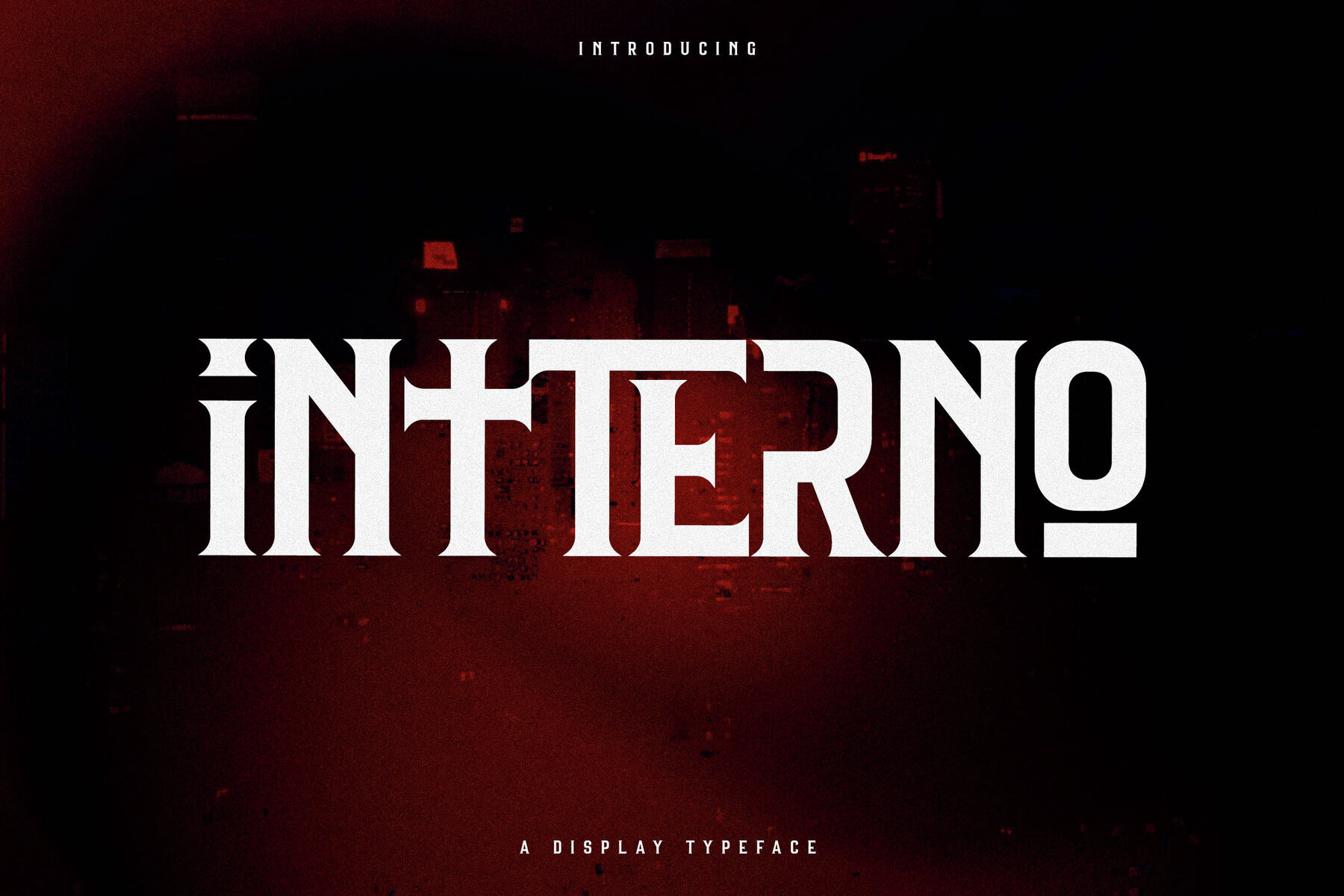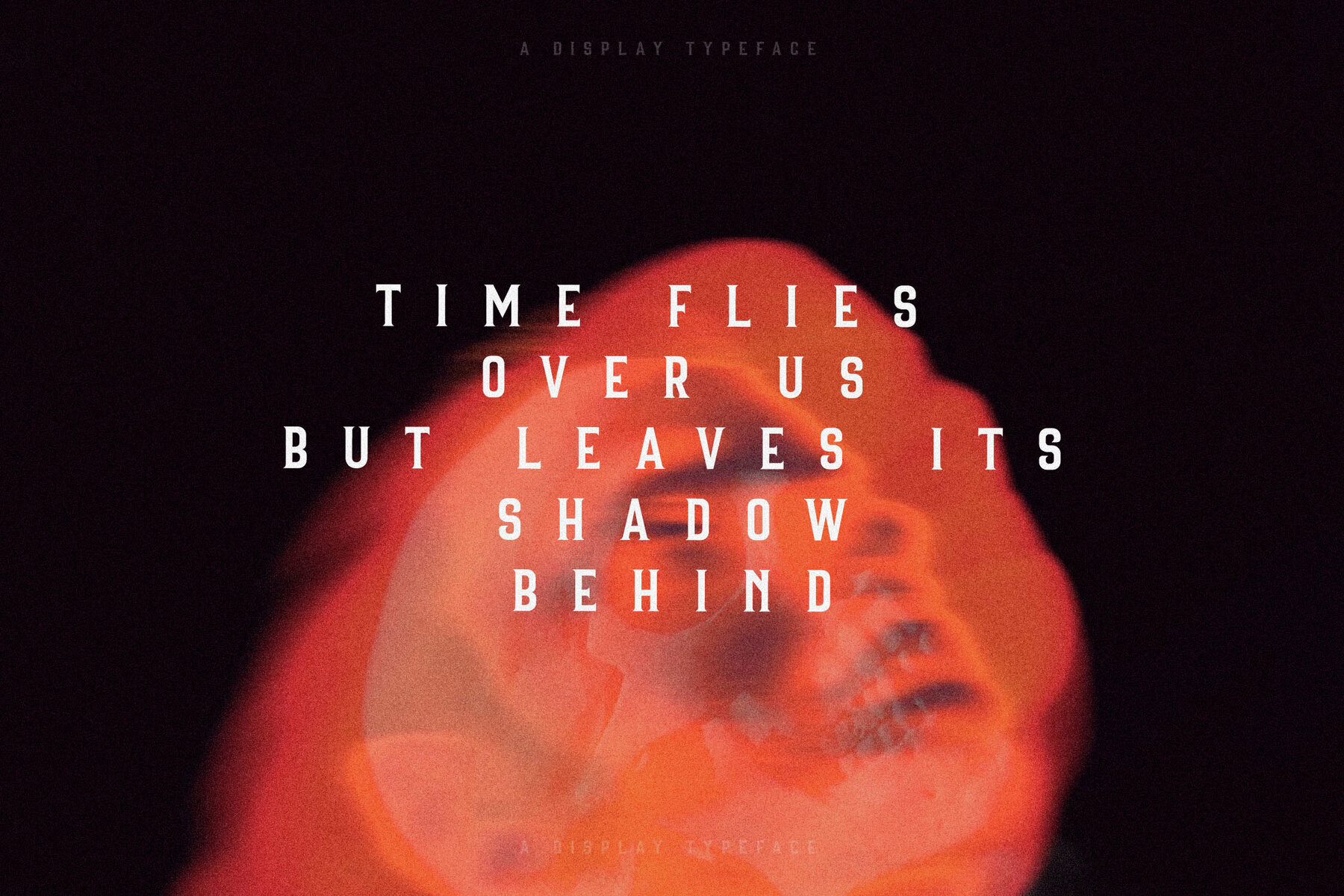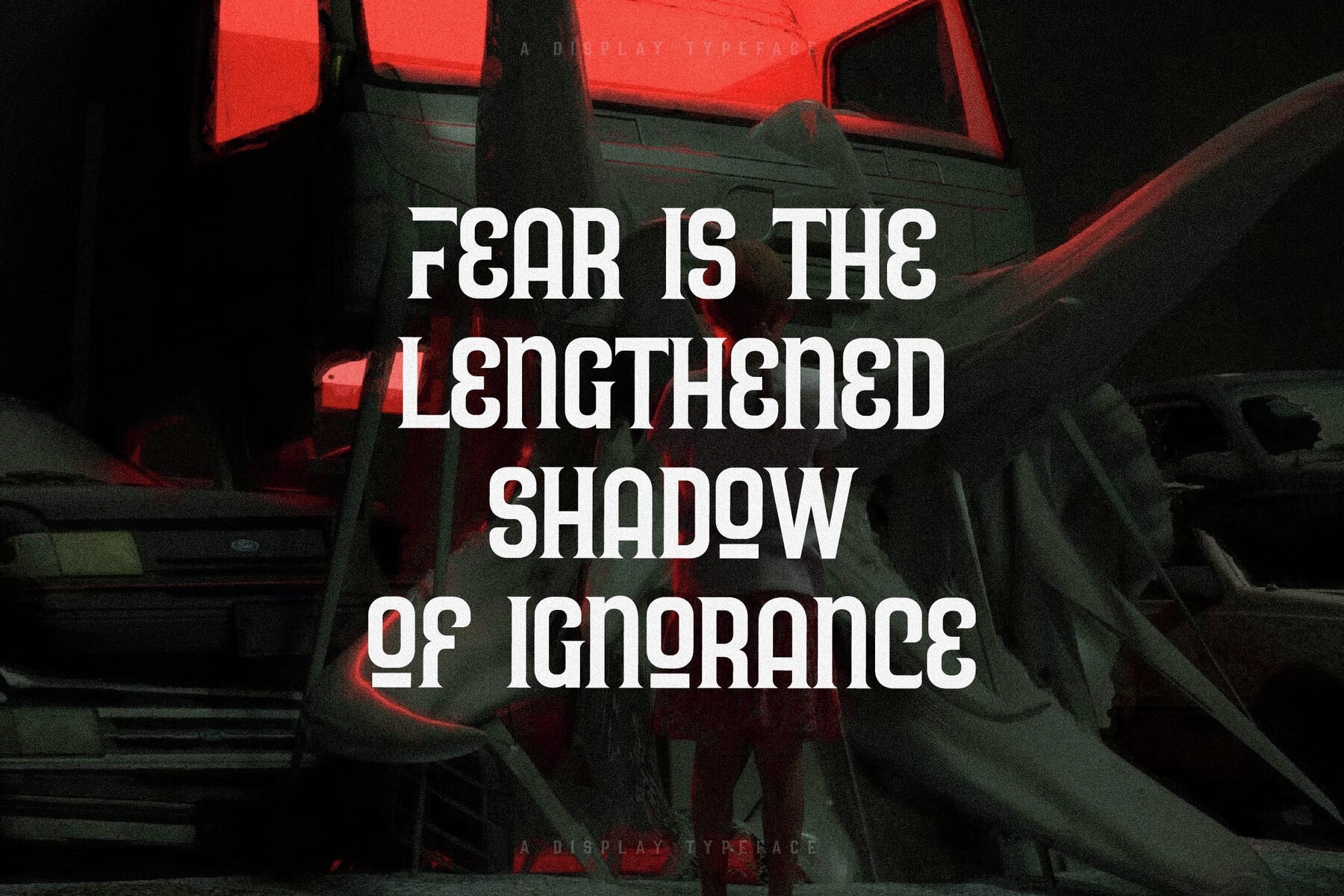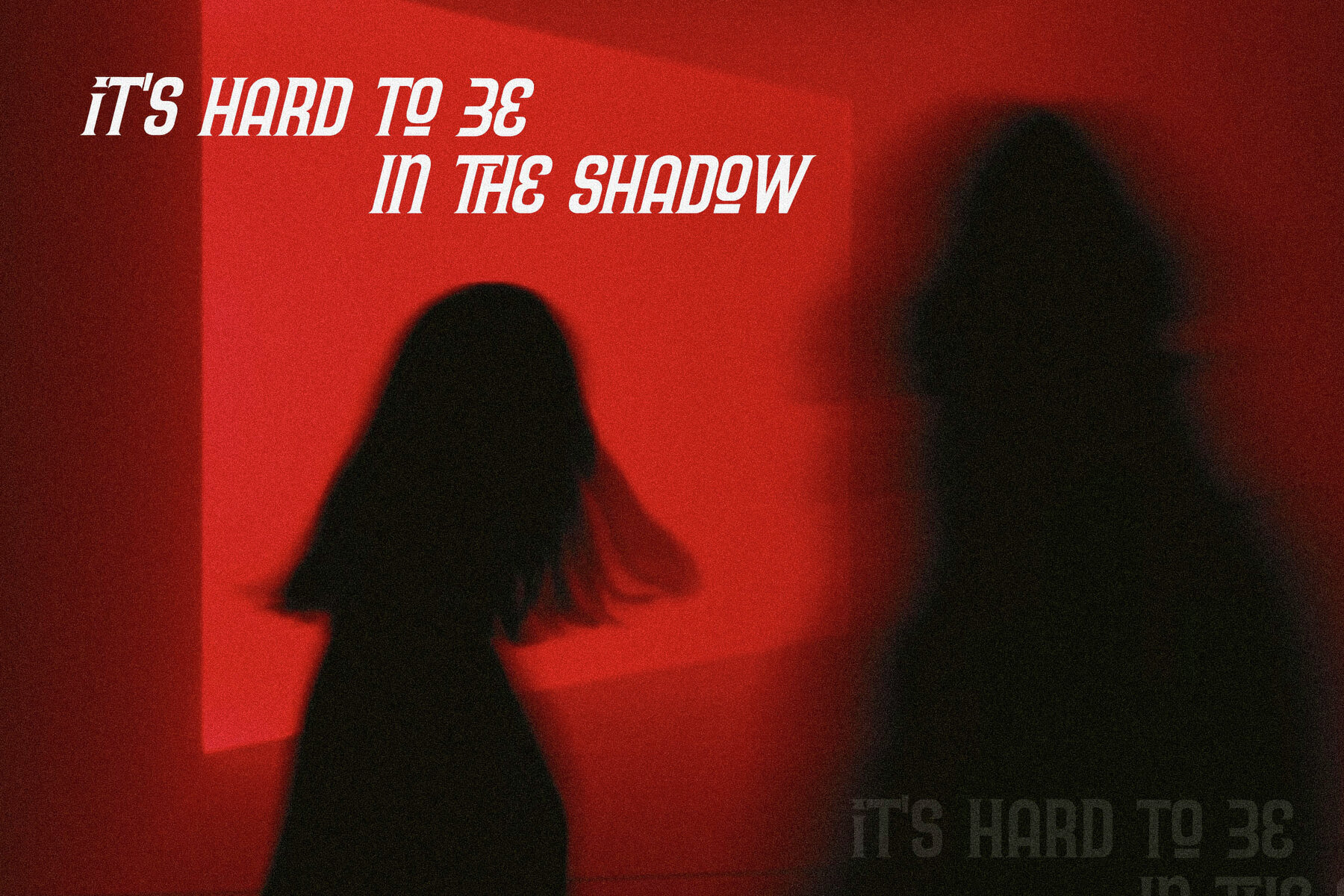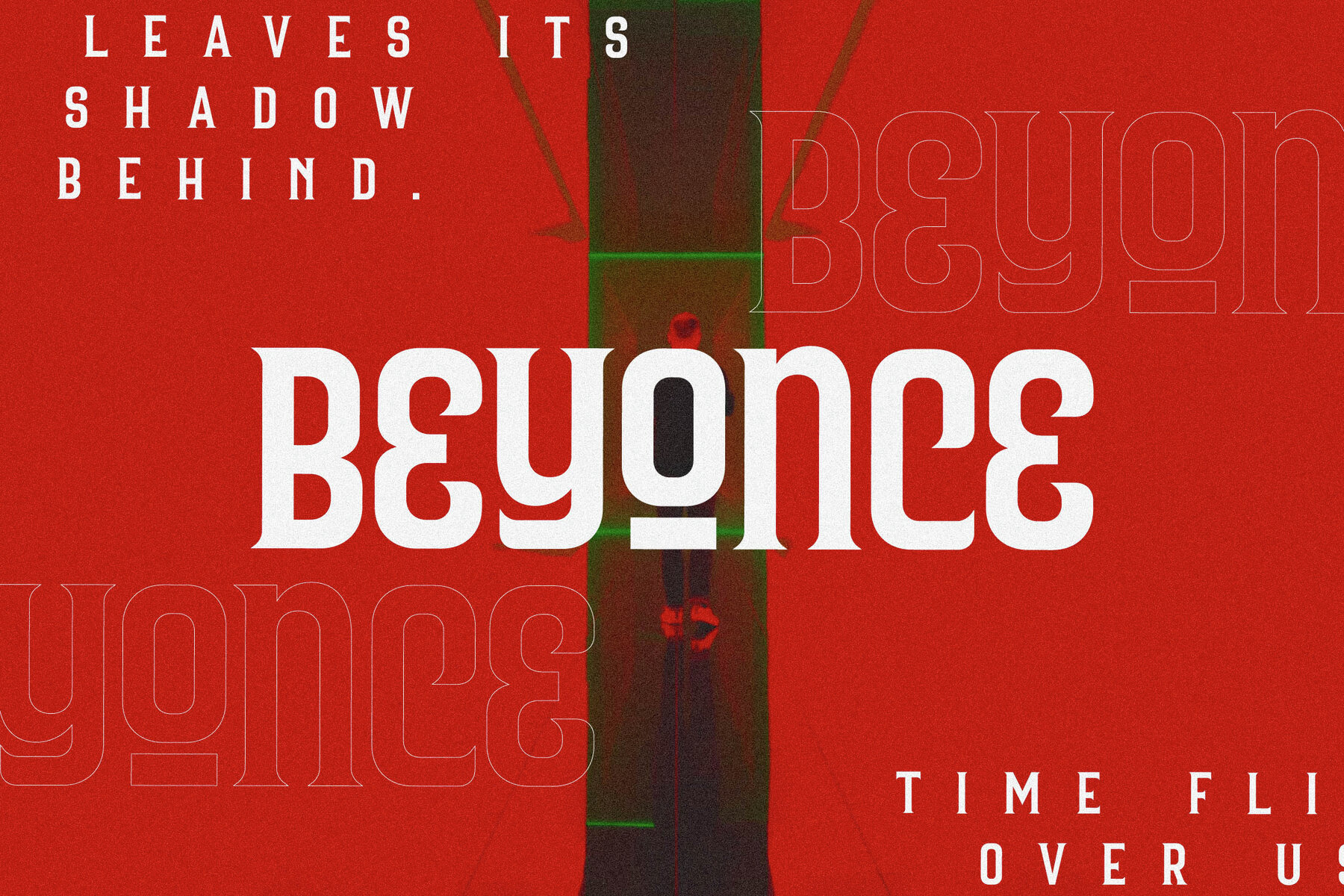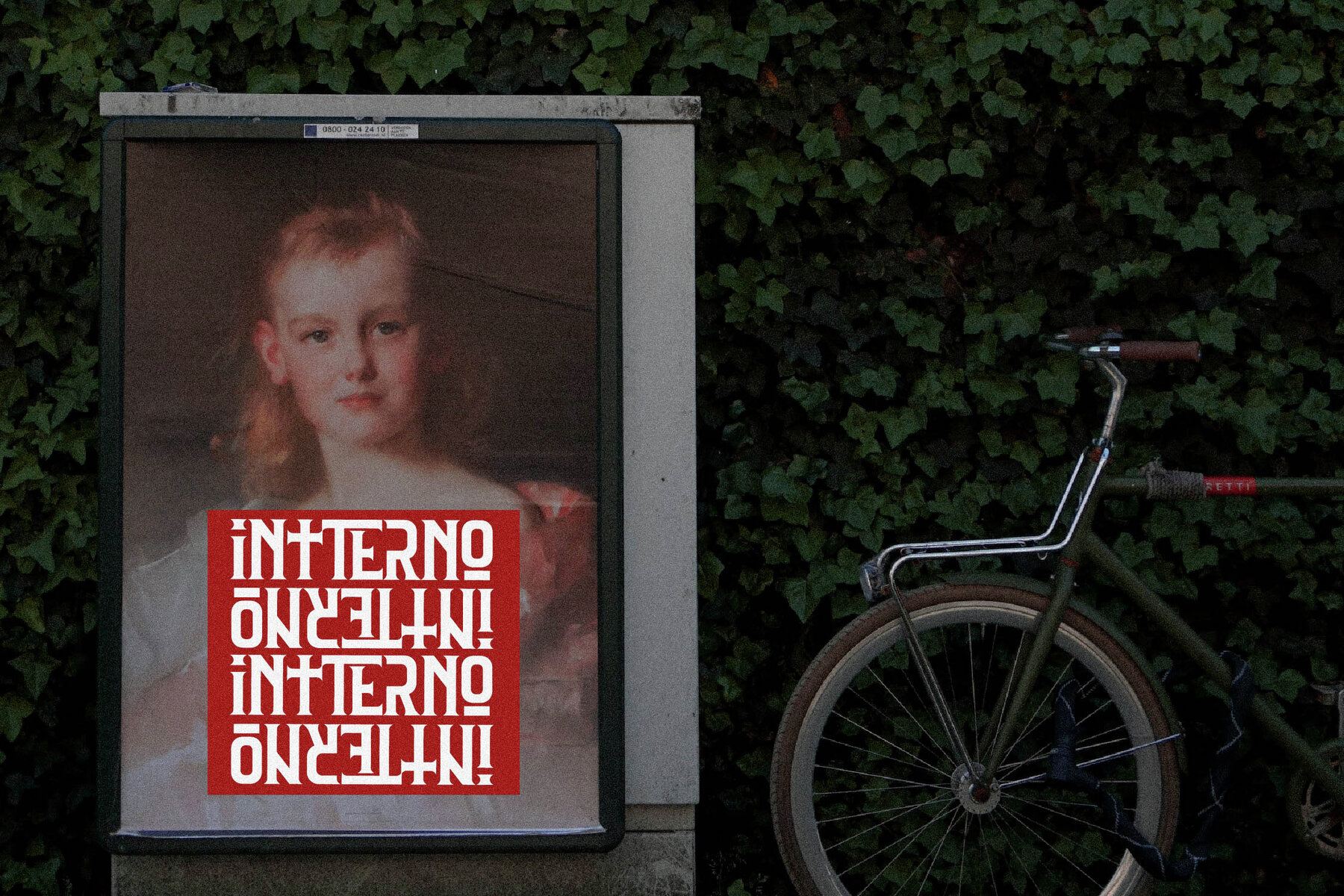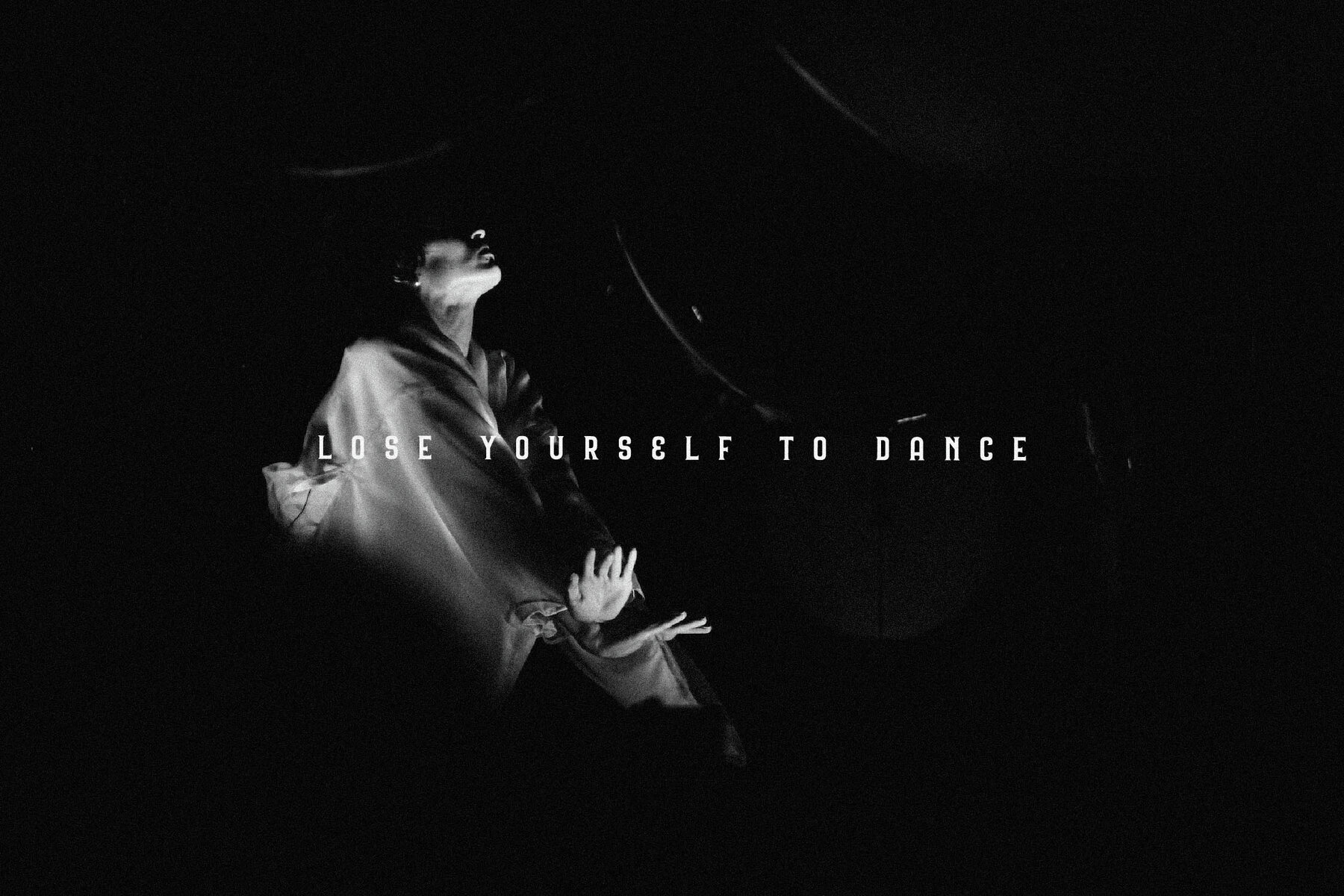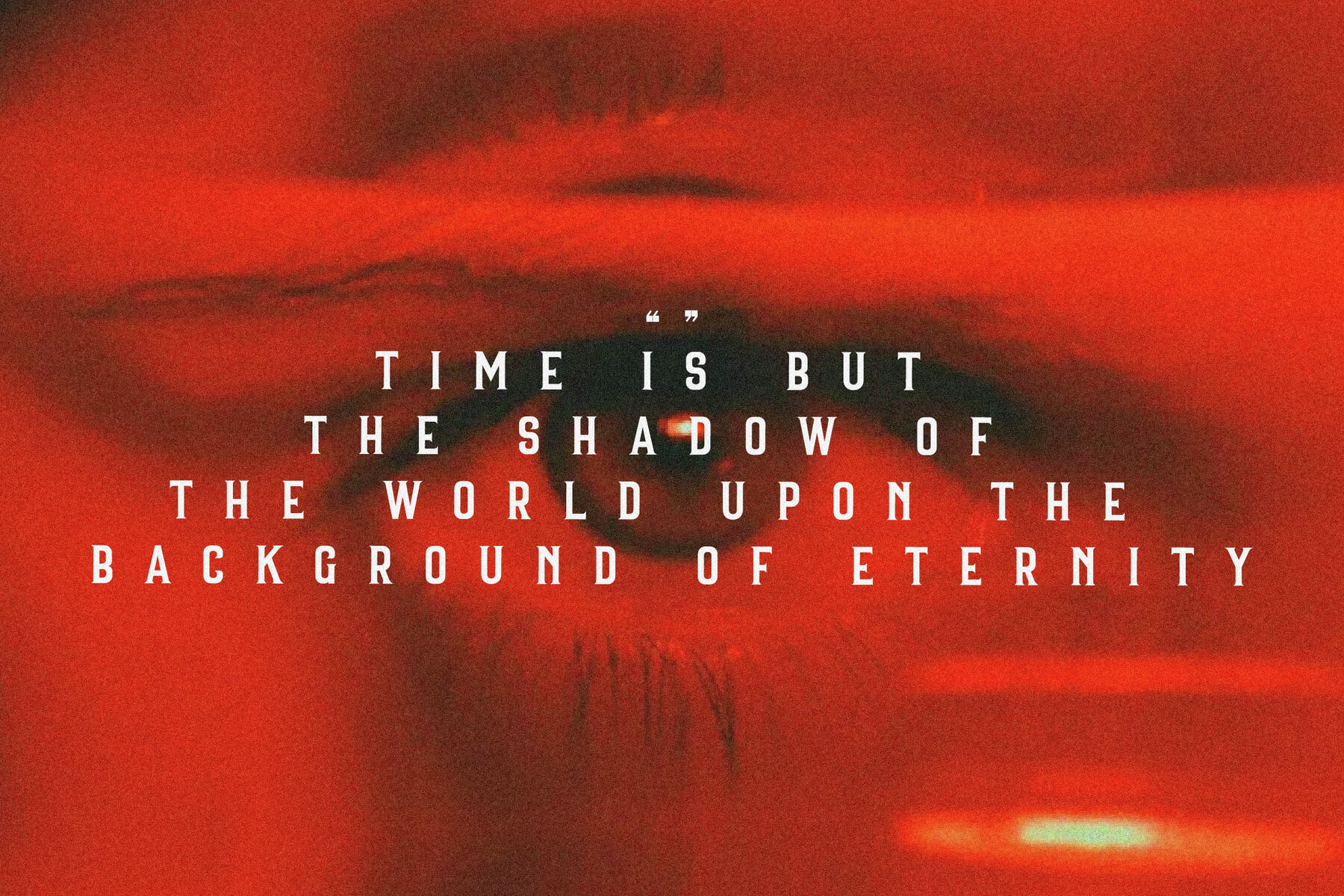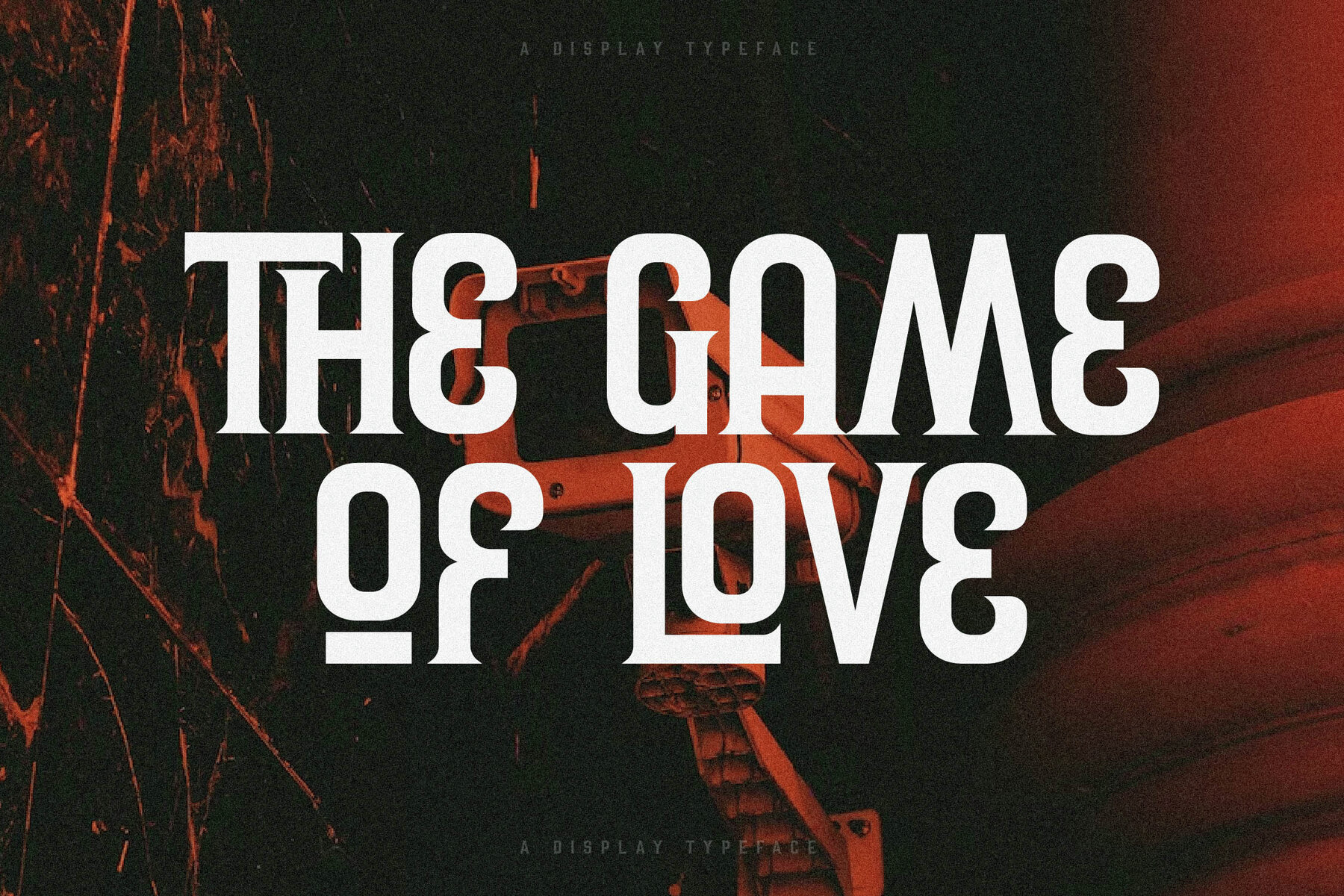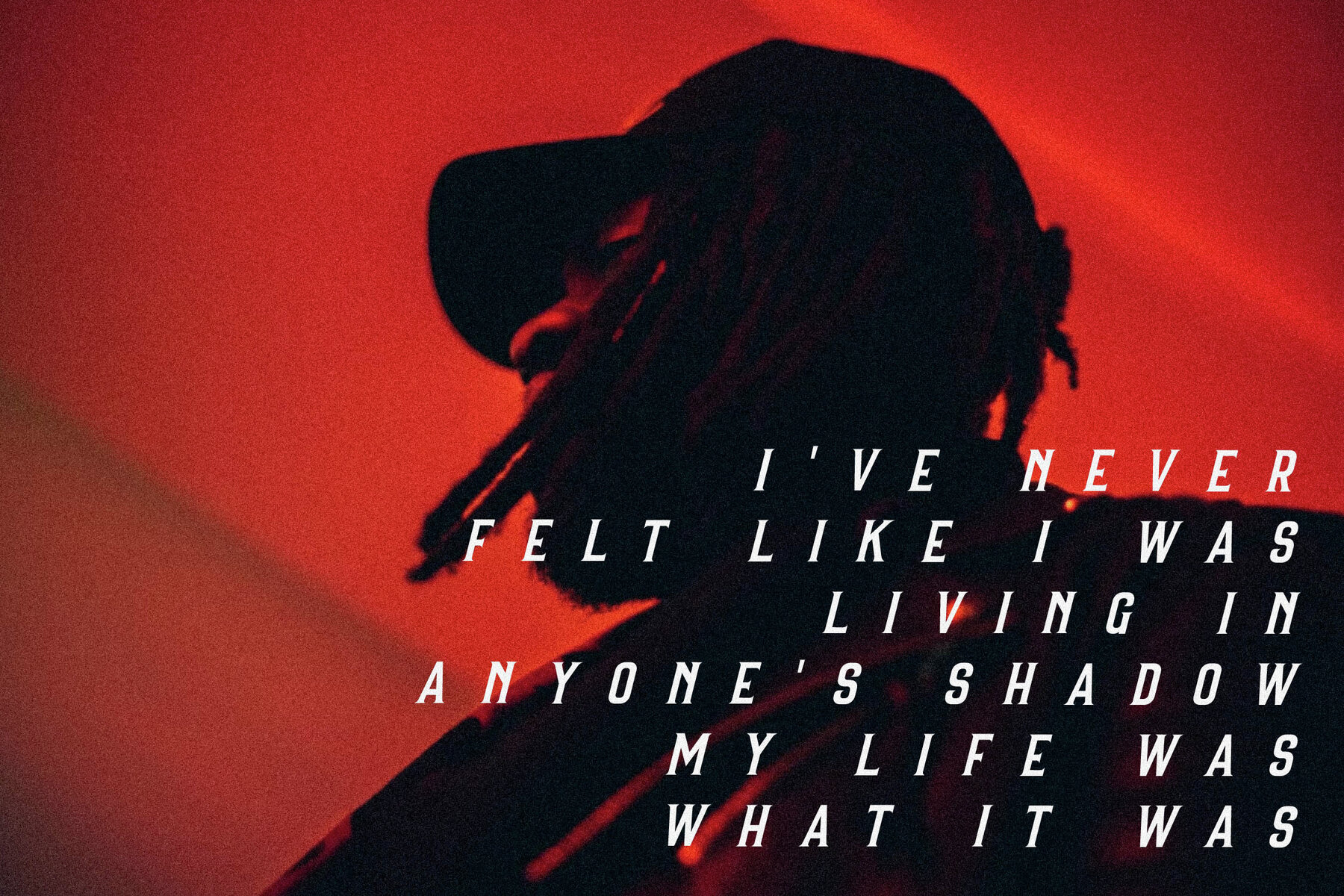
INTTERNO Font
Step into the world of sophistication with the INTTERNO Typeface, a distinguished serif font brought to life by Storytype Studio. Seamlessly blending modern elegance with classic charm, INTTERNO invites you to explore its unique stylistic realm. Ideal for creating luxurious logos, captivating book or movie titles, and sophisticated fashion branding, this typeface is a versatile tool for any design endeavor. Whether you're working on a magazine, clothing line, or inspiring quotes, INTTERNO offers unparalleled appeal.INTTERNO Typeface